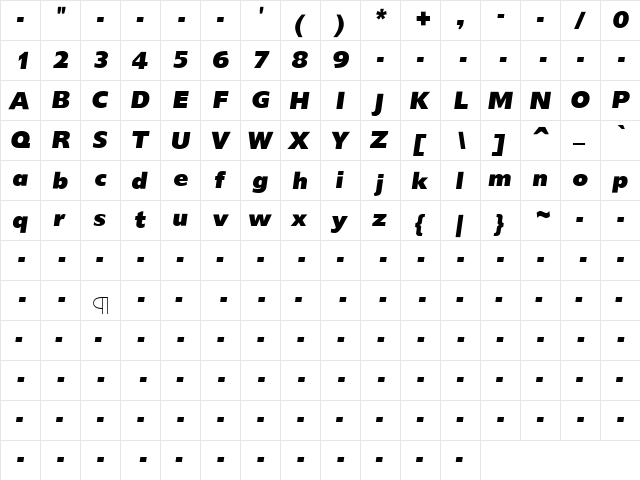
DelargoDT Italic
| Foundry | DTP Types Limited |
Design Context for DelargoDT Typeface
DelargoDT offers clean, dependable letterforms without strong stylistic allegiance, making it a practical choice for designers who need flexibility. The slanted form adds forward momentum and visual energy.